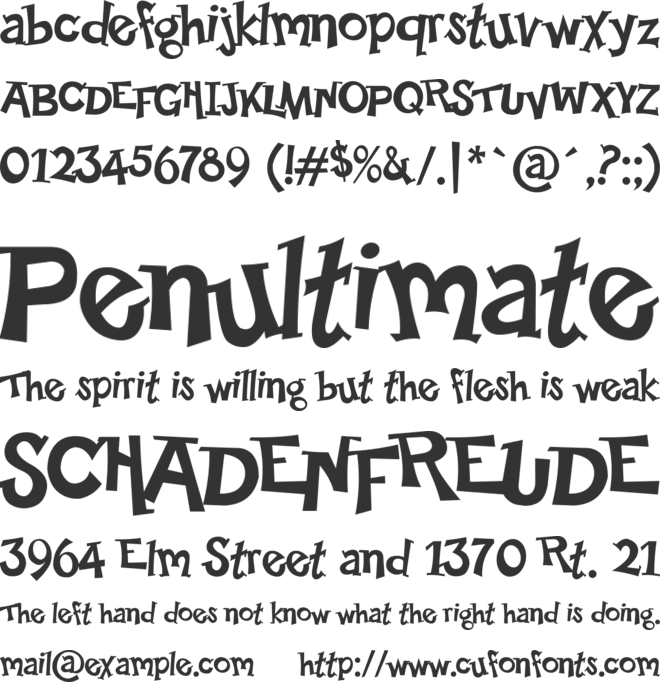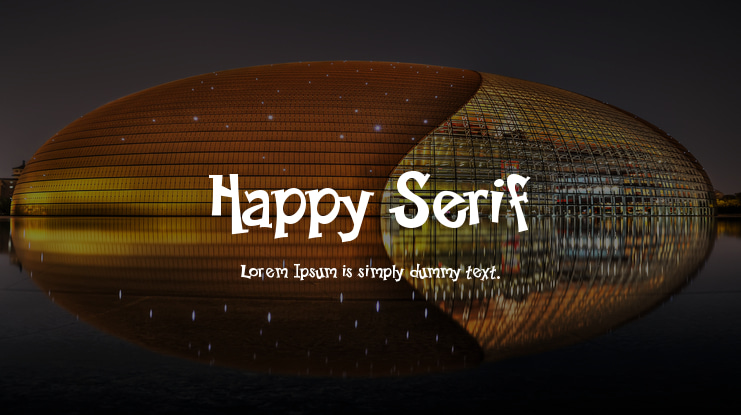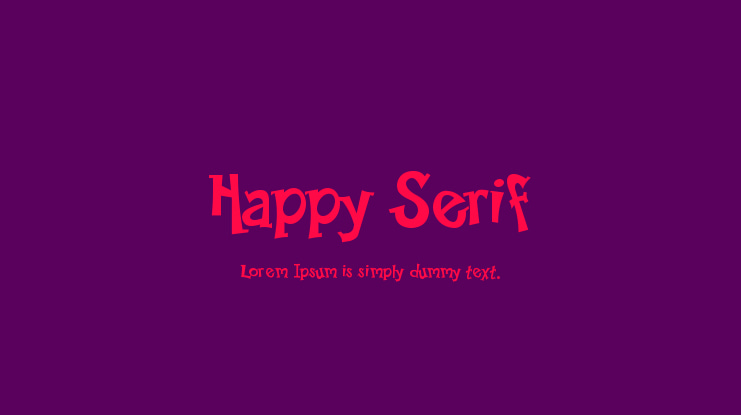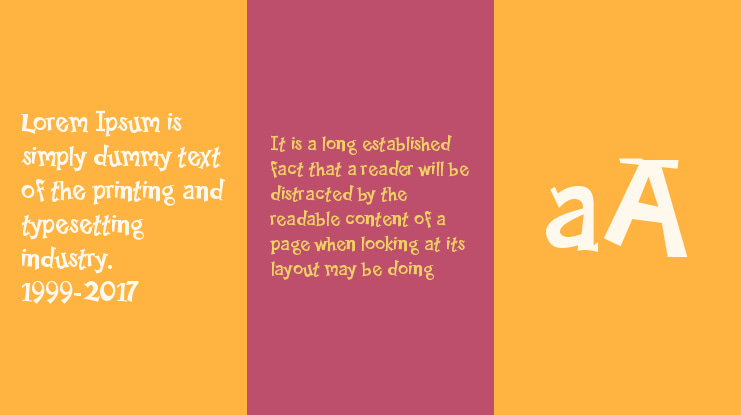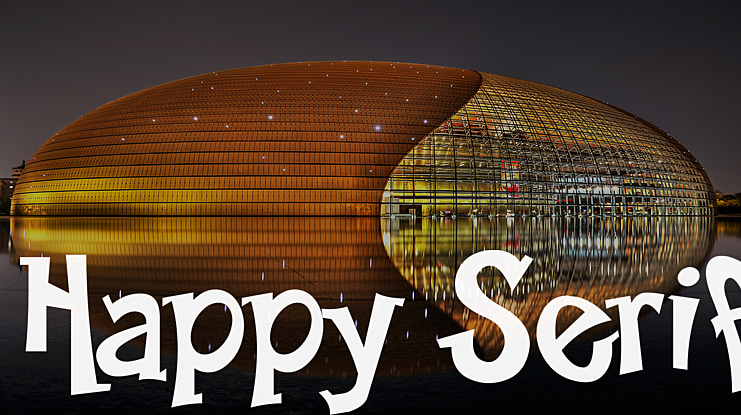
Happy Serif Font
A font for light and fun projects. I designed this with the idea to have a happy whimsey to the look, but to remain legible and not be completely spastic in weight or feel.